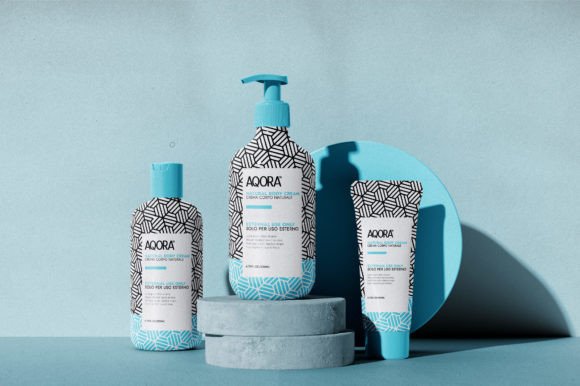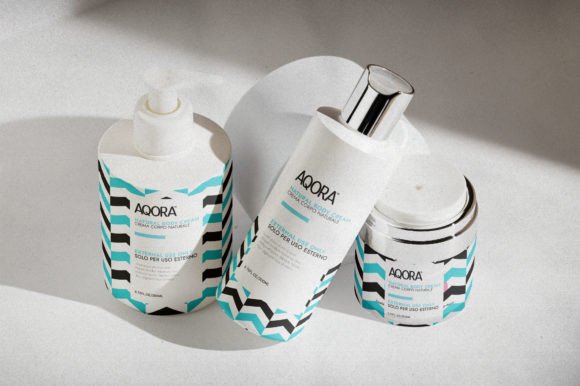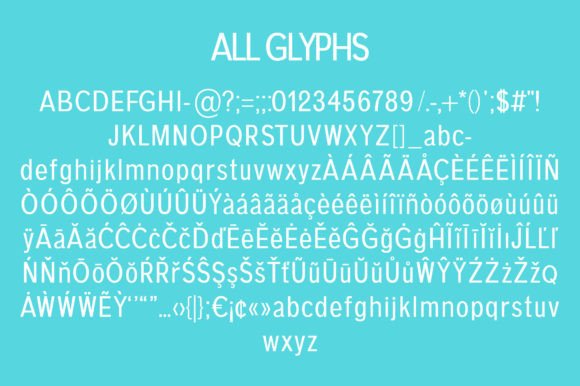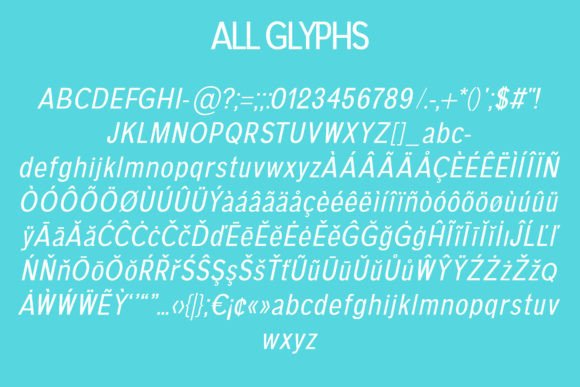
Aqora Font: Elevate Your Designs with a Clean and Minimalist Typeface
In the world of design, typography plays a crucial role in conveying messages, evoking emotions, and creating visual identities. When it comes to selecting the perfect font for your project, the options can be overwhelming. However, if you’re looking for a clean, minimalist, and condensed sans serif typeface, look no further than Aqora Font. In this article, we’ll explore the features, benefits, and uses of Aqora Font, and why it’s an excellent choice for designers and crafters.
What is Aqora Font?
Aqora Font is a modern sans serif typeface that boasts a clean and minimalist aesthetic. Its condensed design makes it perfect for projects where space is limited, yet legibility is essential. The font’s simplicity and elegance render it versatile, allowing it to be used across various themes, including packaging design, cosmetics design, web design, book covers, posters, and more.
Key Features of Aqora Font
- Clean and Minimalist Design: Aqora Font features a sleek and uncluttered design, making it perfect for modern designs that require a touch of sophistication.
- Condensed Sans Serif: The font’s condensed design allows for more text to be fitted into a smaller space, making it ideal for titles, headings, and labels.
- Versatile: Aqora Font can be used across various themes, from packaging design to web design, and everything in between.
- Legible: Despite its condensed design, Aqora Font remains highly legible, ensuring that your message is conveyed clearly.
Benefits of Using Aqora Font
So, why choose Aqora Font for your next project? Here are just a few benefits of using this versatile typeface:
- Easily Pair with Other Fonts: Aqora Font’s neutral design makes it easy to pair with other fonts, allowing you to create unique and visually appealing typography combinations.
- Adds Professionalism to Your Designs: The font’s clean and minimalist design adds a touch of professionalism to your designs, making them perfect for business and commercial projects.
- Enhances Readability: Aqora Font’s legibility ensures that your message is conveyed clearly, making it perfect for body text, titles, and headings.
Use Cases for Aqora Font
Aqora Font is an excellent choice for a wide range of design projects, including:
- Packaging Design: Use Aqora Font to create eye-catching labels, product names, and taglines that stand out on store shelves.
- Cosmetics Design: Aqora Font’s clean and minimalist design makes it perfect for beauty and cosmetics branding, including product names, packaging, and advertising.
- Web Design: Use Aqora Font to create modern and responsive web designs that are both visually appealing and easy to read.
- Book Covers and Posters: Aqora Font’s condensed design makes it perfect for titles, headings, and taglines on book covers and posters.
Tips for Using Aqora Font Effectively
To get the most out of Aqora Font, here are a few tips to keep in mind:
- Experiment with Font Sizes: Aqora Font’s condensed design makes it perfect for use at smaller font sizes, but don’t be afraid to experiment with larger sizes for added impact.
- Pair with Images and Graphics: Aqora Font’s neutral design makes it easy to pair with images and graphics, creating visually appealing and balanced designs.
- Use for Headings and Titles: Aqora Font’s condensed design makes it perfect for headings and titles, adding a touch of sophistication to your designs.
In conclusion, Aqora Font is a versatile and modern sans serif typeface that is perfect for designers and crafters looking for a clean, minimalist, and condensed font. Its features, benefits, and uses make it an excellent choice for a wide range of design projects, from packaging design to web design. With Aqora Font, you can add a touch of sophistication and professionalism to your designs, making them stand out in a crowded market.